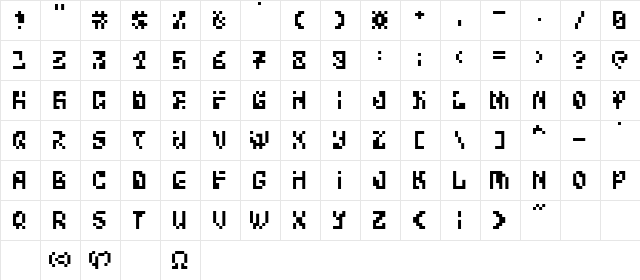
Bitwise Alpha Normal
Design Context for Bitwise Alpha Typeface
Bitwise Alpha offers clean, dependable letterforms without strong stylistic allegiance, making it a practical choice for designers who need flexibility.
Pro Tip: Pair Bitwise Alpha with a font of contrasting weight or personality to build a more expressive typographic hierarchy.